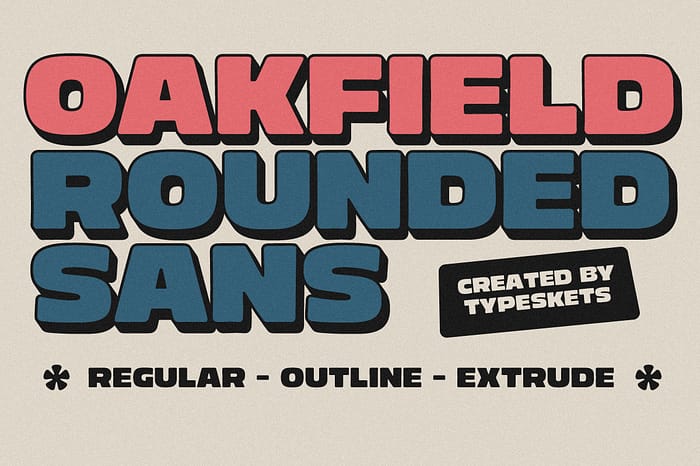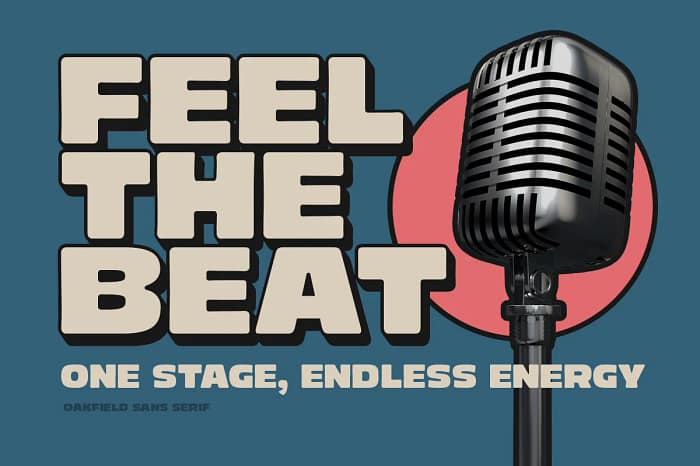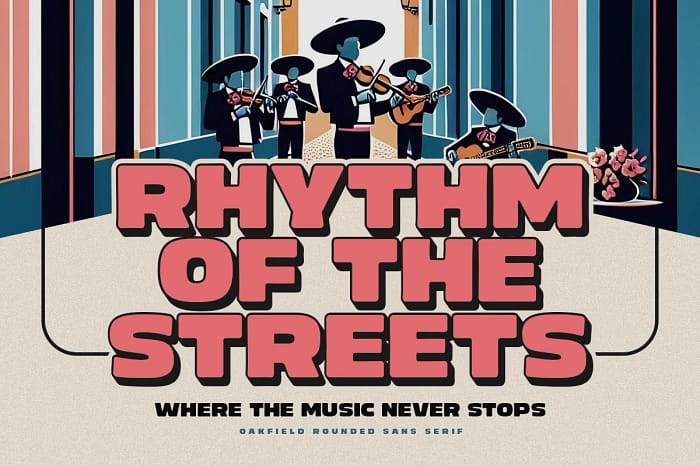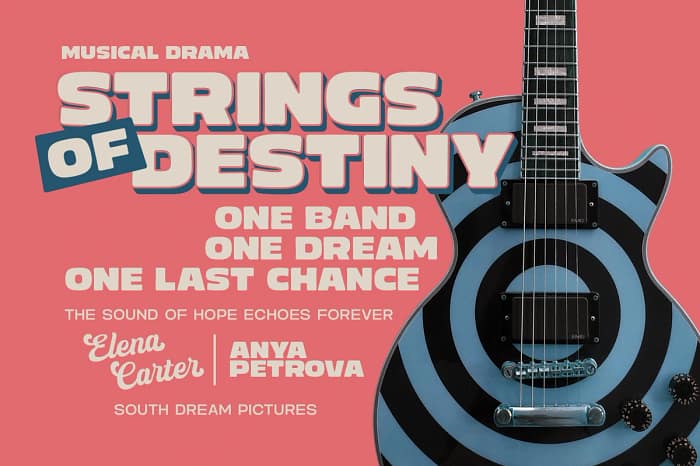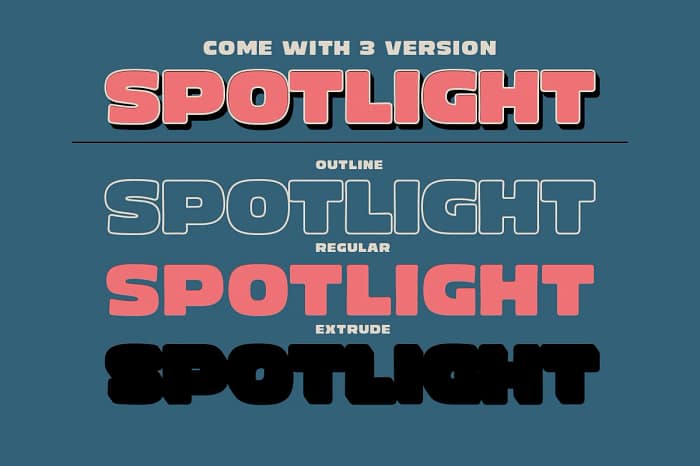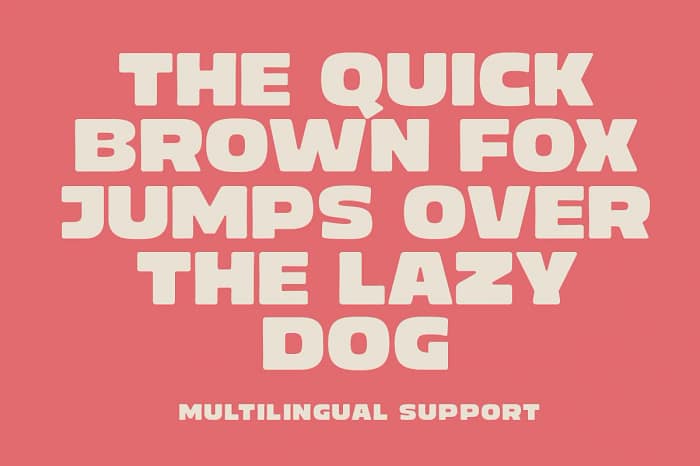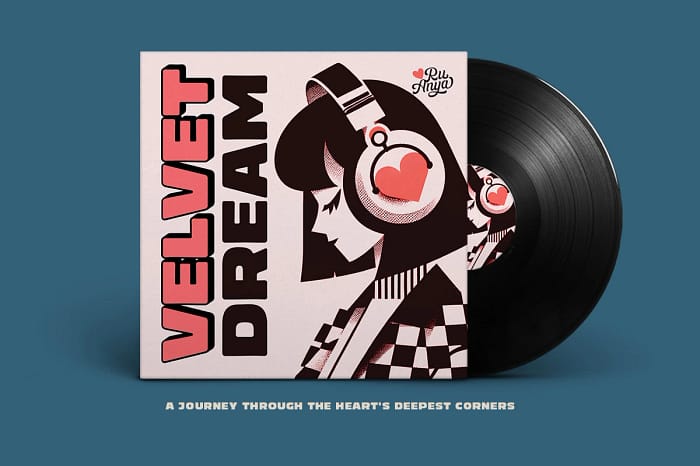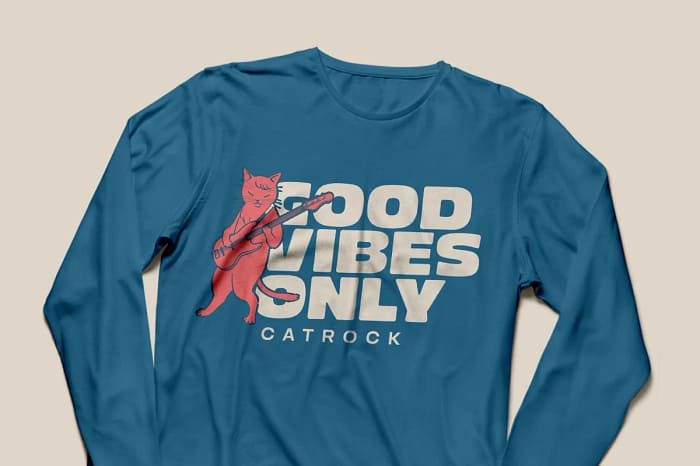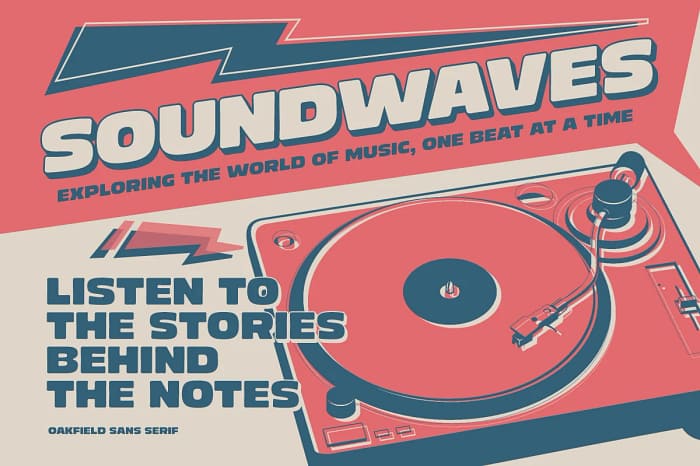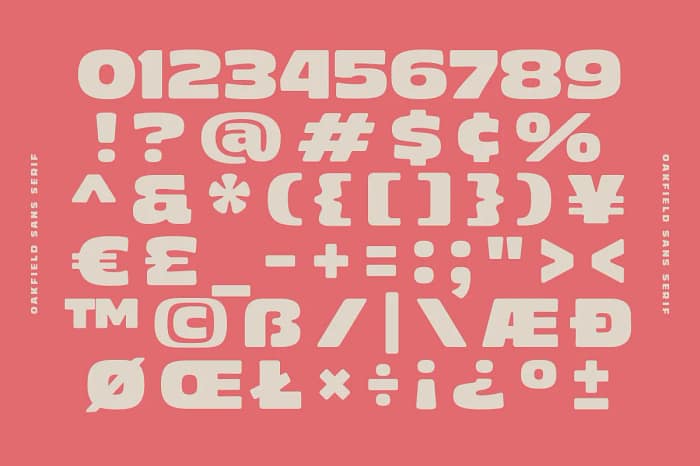
OAKFIELD
A versatile sans-serif typeface with a bold, rounded personality. Featuring Regular, Outline, and Extrude styles
(Oakfield) A versatile sans-serif typeface with a bold, rounded personality. Featuring Regular, Outline, and Extrude styles, Oakfield is perfect for creating retro-modern designs, eye-catching posters, editorial layouts, and dynamic headlines. Its balanced curves and geometric structure blend vintage charm with contemporary design aesthetics. Crafted for designers who want to make a statement!